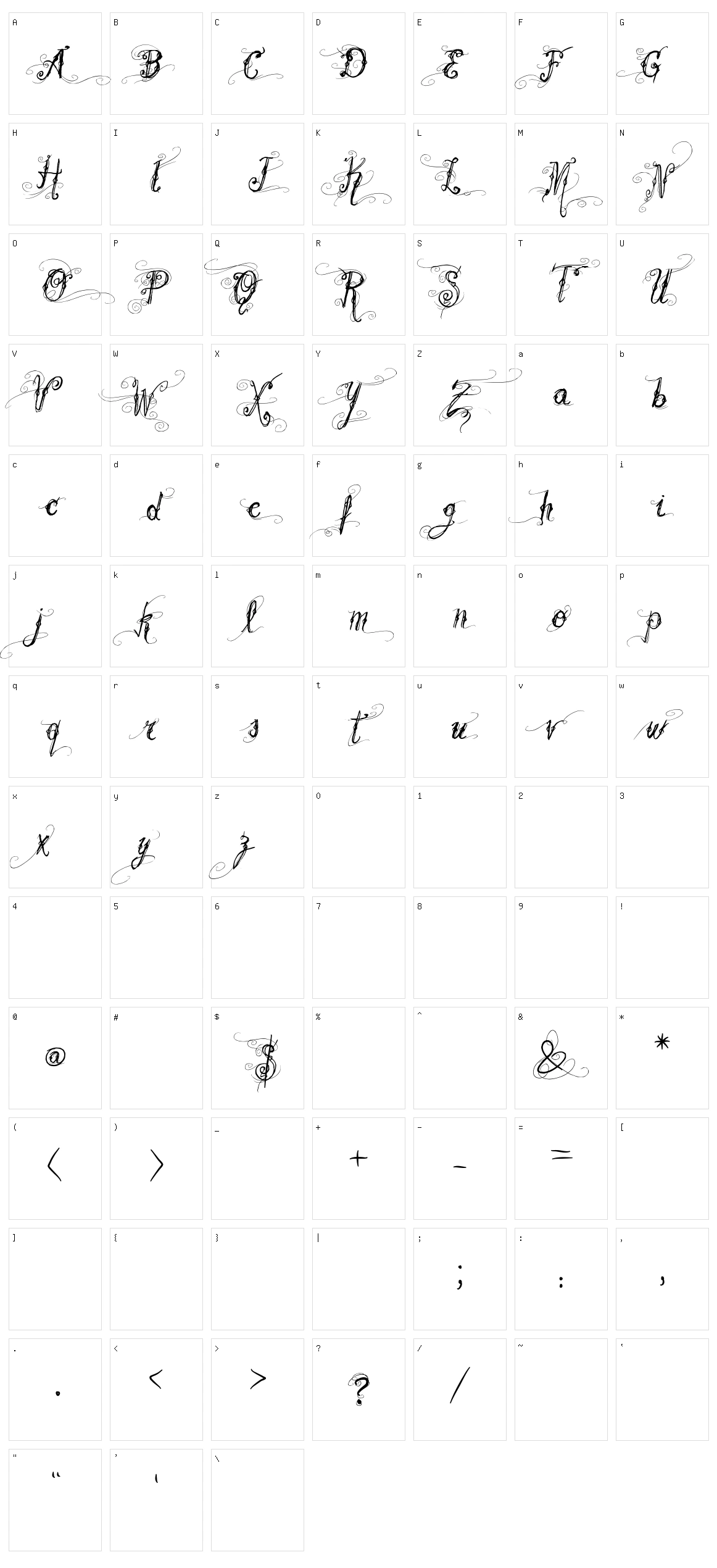
The free font Vtks Beautiful Dreams is carefully designed by Douglas Vitkauskas, showcasing a thoughtful balance of creativity and usability and falls under the Script font style. When you download the ZIP file, it contains only 126.73 KB of font files, making it lightweight and quick to download. Please review the license details below to understand permitted usage and distribution rights. If license information is not available, we recommend using this font for personal projects only or contacting the author directly for commercial usage permissions.